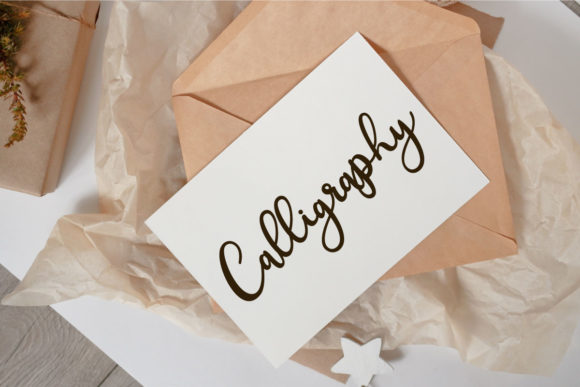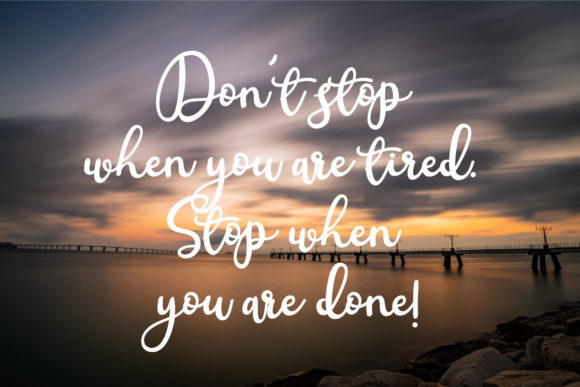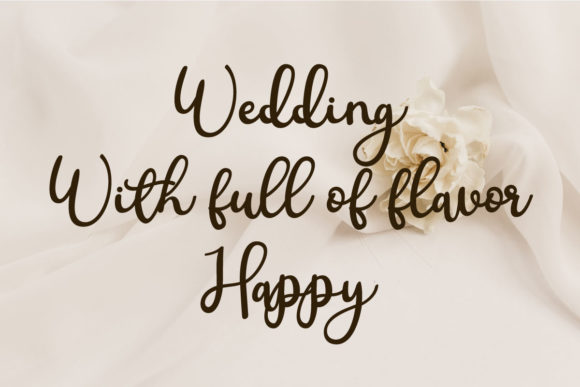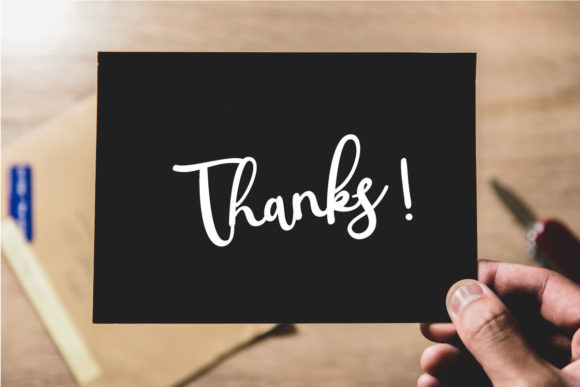
The Designer’s Delight: Exploring the Beauty of Daniel Font
I’ll never forget the time I was working on a wedding invitation project, and my client asked for a font that was both elegant and playful. I scoured the internet, tried out countless fonts, but nothing seemed quite right. That was until I stumbled upon Daniel Font. Its beautiful, flowing script immediately caught my eye, and I knew I had found the perfect fit. In this article, I’ll share my experience with Daniel Font, and explore its features, uses, and alternatives.
An Honest Review of Daniel Font
- ✨ Beautiful and flowing handwritten script
- ✅ Highly versatile and can be used for a variety of projects
- ✅ Easy to read and understand, even at small sizes
- ✅ Supports OpenType features, glyphs, and stylistic alternates
While Daniel Font is an excellent choice for many projects, there are a few things to keep in mind. 🤔 For example, it may not be the best choice for very long blocks of text, as it can be a bit ornate and decorative. ⚠️ Additionally, some users have reported issues with kerning and spacing, particularly at smaller font sizes.
The Story Behind Daniel Font
Daniel Font was designed by a team of typographers who wanted to create a beautiful and versatile handwritten font. Inspired by classic calligraphy and modern script fonts, Daniel Font is the result of careful craftsmanship and attention to detail. The font’s creator aimed to produce a font that would be both elegant and playful, making it perfect for a wide range of design projects.
| Font Name | Daniel Font |
| Author | Arief Indra Pratama |
Q: What type of projects is Daniel Font best suited for?
A: Daniel Font is highly versatile and can be used for a variety of projects, including wall displays, wedding invitations, social media post logos, advertisements, product packaging, product designs, labels, photography, watermarks, invitations, stationery, and more.
Q: Is Daniel Font easy to read?
A: Yes, Daniel Font is designed to be easy to read and understand, even at small sizes. However, it’s best suited for short to medium-length text, rather than long blocks of text.
Q: Can I use Daniel Font with OpenType features?
A: Yes, Daniel Font supports OpenType features, including glyphs and stylistic alternates. You can access these features in design programs like Adobe Photoshop and Illustrator, or in platforms like Canva.